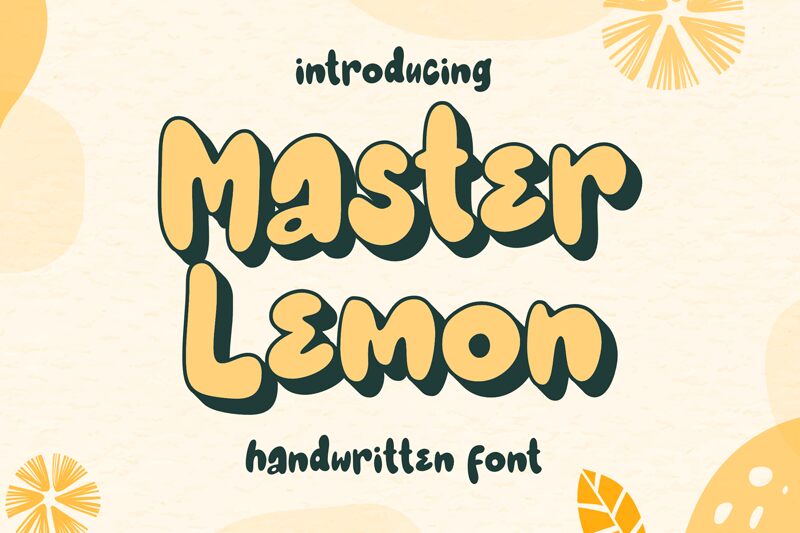
Master Lemon Regular
Master Lemon font, designed by Lettersweet Studio, embodies a playful charm with its bold, cartoon style. Its exaggerated curves and lively characters evoke a sense of joy and creativity, making it perfect for designs that aim to delight. The dynamic strokes add to its whimsical aesthetic, while the compact nature ensures clarity even in vibrant compositions.
Whether used for children's book covers, playful branding, or eye-catching event posters, Master Lemon effortlessly injects personality into any project. Its distinctive flair captivates attention and conveys an inviting tone, making it an ideal choice for anything that seeks to engage and entertain. Embrace the spirit of fun with this eye-catching display font!